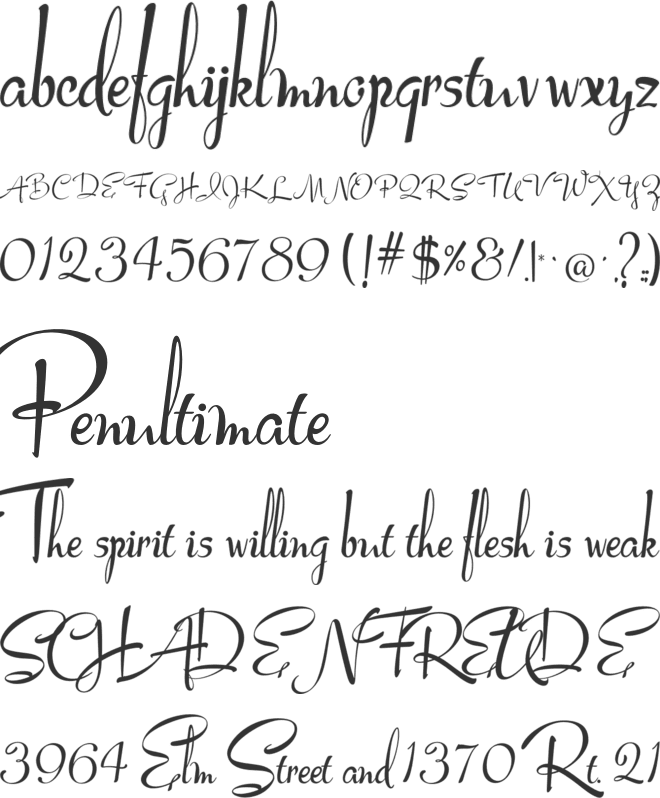
Lucy Script Font
Capital letters originally named "Individual Capitals" traced from: The ABC of Lettering by J.I. Biegeleisen. Harper & Row Publishers NY 1965. ISDN 65-14683.